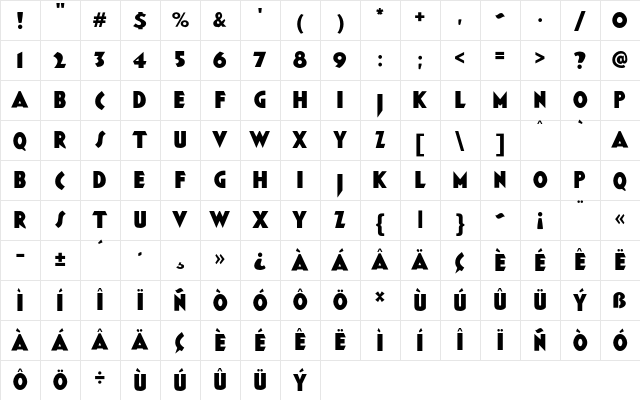
JMH ROCAMBOLE Extrabold Free Font
JMH ROCAMBOLE Extrabold
Style: Extrabold
Design Context for JMH ROCAMBOLE
JMH ROCAMBOLE is a composed and adaptable typeface that performs quietly and consistently across a wide range of design contexts. Its bold stroke weight gives it real presence on the page.